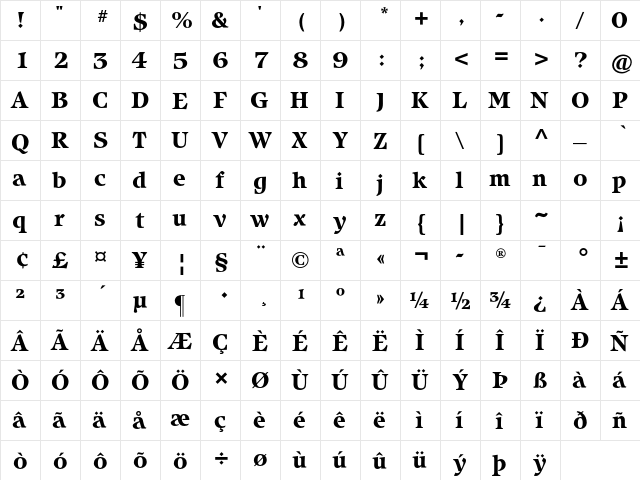
Isbell ITC Std Bold
| Designer | Dick Isbell/Jerry Campbell |
Design Context for Isbell ITC Std Typeface
Isbell ITC Std is a composed and adaptable typeface that performs quietly and consistently across a wide range of design contexts. Its bold stroke weight gives it real presence on the page.